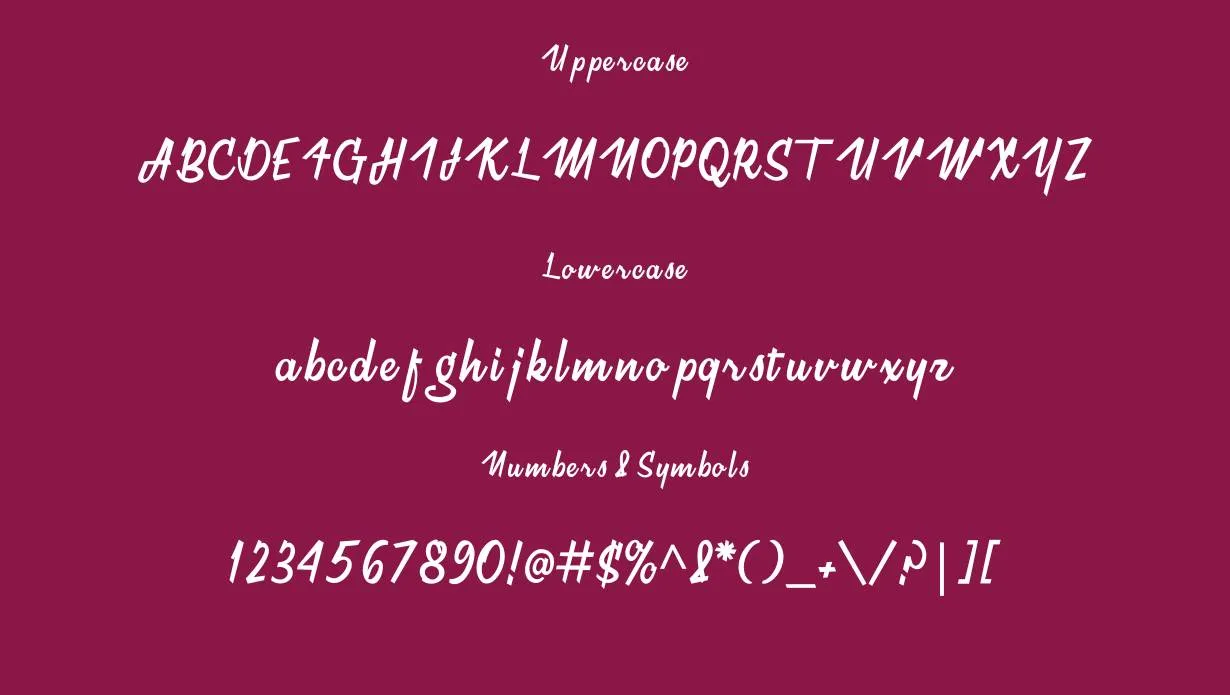
Cartel Deux Font is a stylish and decorative typeface that brings a bold and artistic vibe to designs. Its intricate details and expressive design make it a great choice for posters, album covers, and creative advertising materials.
| Name | Cartel Deux Font |
| Designer | Cartel Deux |